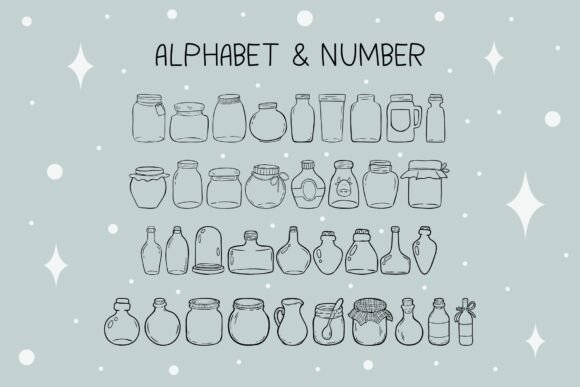
Introduction to Jars Font
As a designer, have you ever stumbled upon that perfect font that elevates your entire creative project? It’s that ‘aha’ moment when everything falls into place, and your vision becomes a reality. For me, that moment came when I discovered the Jars Font. This charming dingbats font has been a game-changer for designers looking to add a touch of whimsy to their designs.
Whether you’re working on a logo, wall art, or a set of custom greeting cards, the Jars Font is a valuable resource that can take your designs to the next level. With its high-quality design and transparent background, this font is perfect for designers who want to add a creative twist to their projects without compromising on quality.
Key Features of Jars Font
- Perfect for designers seeking a unique and stylish font for their next project
Honest Review: Jars Font
- What works well: ✨ The Jars Font boasts a high quality, modern aesthetic that’s perfect for creative projects. Its clean lines and minimalistic design make it incredibly versatile.
- What works well: ✨ The font’s transparent background allows for seamless integration with any design, making it a breeze to work with.
However, I did encounter a few limitations with the Jars Font. ⚠️ For instance, the font family is quite limited, with only a handful of styles to choose from. Additionally, the font’s versatility can sometimes make it feel a bit generic.
Overall, I’m thoroughly impressed with the Jars Font. While it may have its limitations, its high quality and modern aesthetic make it a valuable addition to any design library. If you’re looking for a reliable, free design resource, I’d highly recommend giving the Jars Font a try.
Jars Font is a high-quality, free download design resource perfect for creative projects that require a unique and visually appealing touch. With its transparent background, this font is ideal for use in a variety of design applications.
Tips for Getting the Most Out of Jars Font
To get the most out of Jars Font, experiment with different font sizes, colors, and alignments to create a visually striking design. You can also pair Jars Font with other design elements, such as graphics or shapes, to create a cohesive look.
Jars Font is commonly used in creative projects such as social media graphics, blog posts, and marketing materials. Its unique design makes it perfect for grabbing attention and adding a touch of personality to your designs.